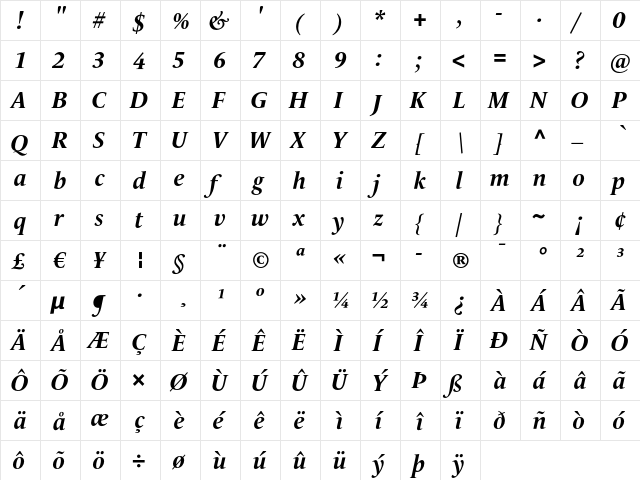
LeMonde Livre Bold Italic Font Preview
Design Context for LeMonde Livre Typeface
LeMonde Livre takes a measured approach to typography — its balanced proportions and neutral character make it a reliable workhorse for both digital and print work. Its italic angle brings a sense of urgency and motion to the letterforms. The heavy weight commands attention and anchors typographic hierarchies.
Pro Tip: Use LeMonde Livre for emphasis, pull quotes, and subheadings where its slanted energy can add rhythm to the layout.